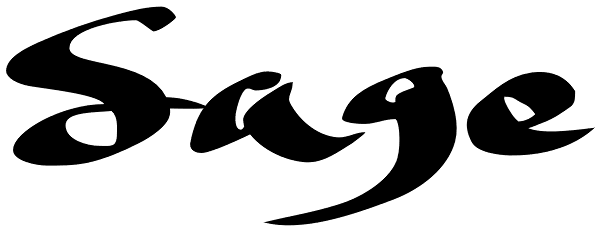
Sage
Sage is a hand generated font with great impact. Robust and vigorous, it's great for informal, exciting design projects. Available all popular font formats, including opentype, Sage has been carefully letterspaced and kerned. All upper and lower...